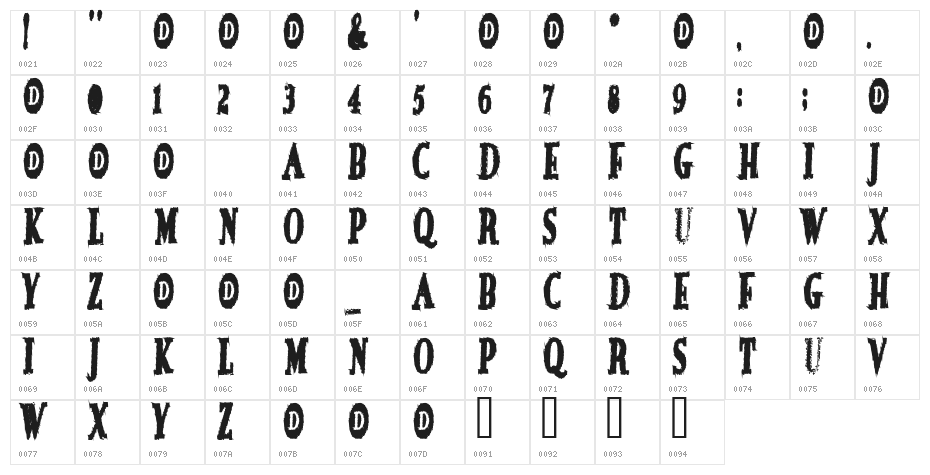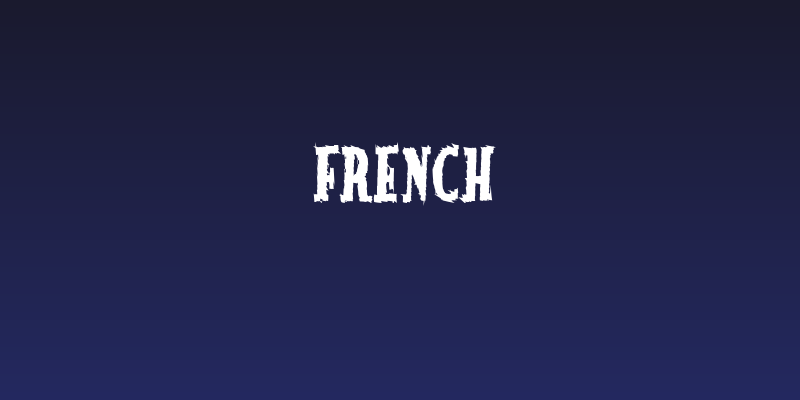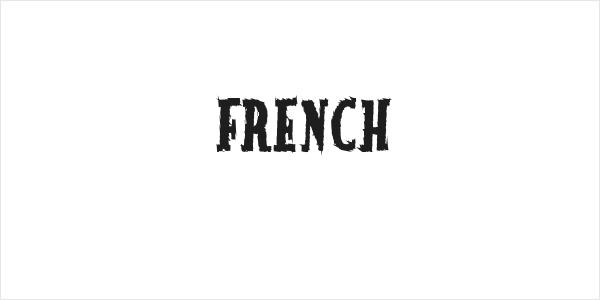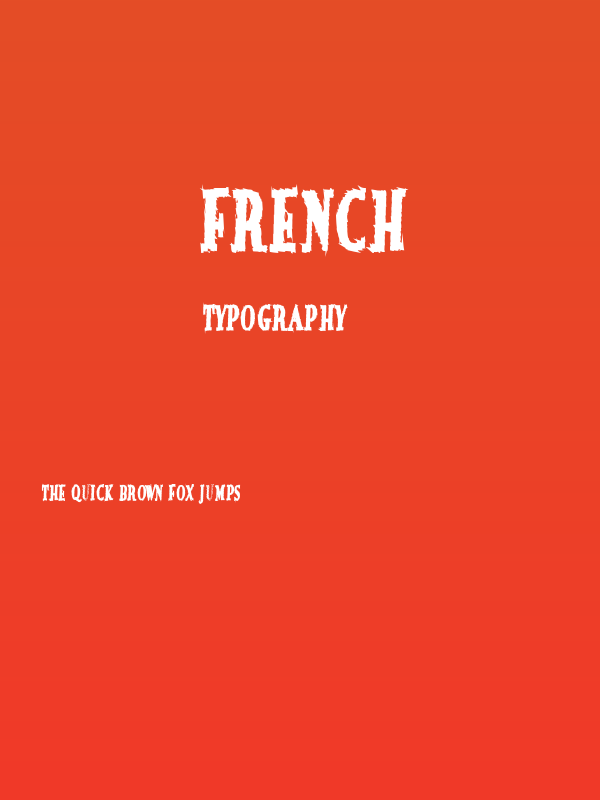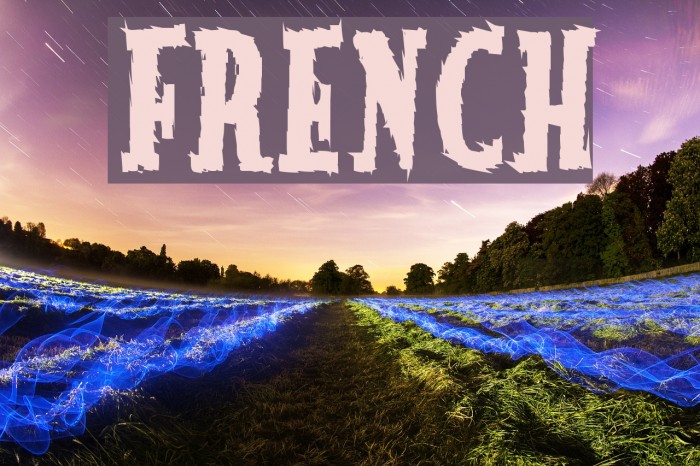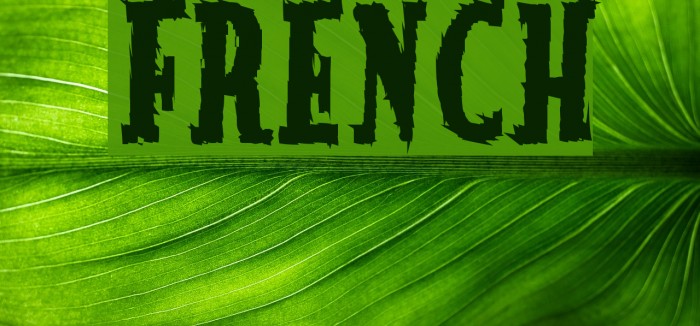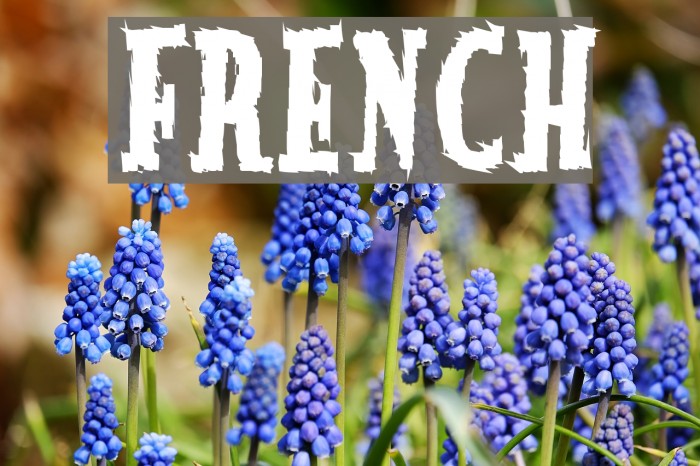
French Font
French Description
This font features a bold and distressed style, with rough, jagged edges that give it a rugged and dynamic appearance. The uppercase and lowercase letters maintain a consistent height, while the numbers and special characters follow the same bold and textured design. The font's unique texture suggests a hand-crafted or vintage feel, making it stand out with its dramatic and eye-catching look. The irregularities in the strokes add to its character, making it suitable for projects that require a strong visual impact.
| Overall Style | Vintage, Decorative |
| Proposed Projects | Ideal for poster designs, album covers, branding for edgy or vintage-themed products, and any project needing a bold statement. |